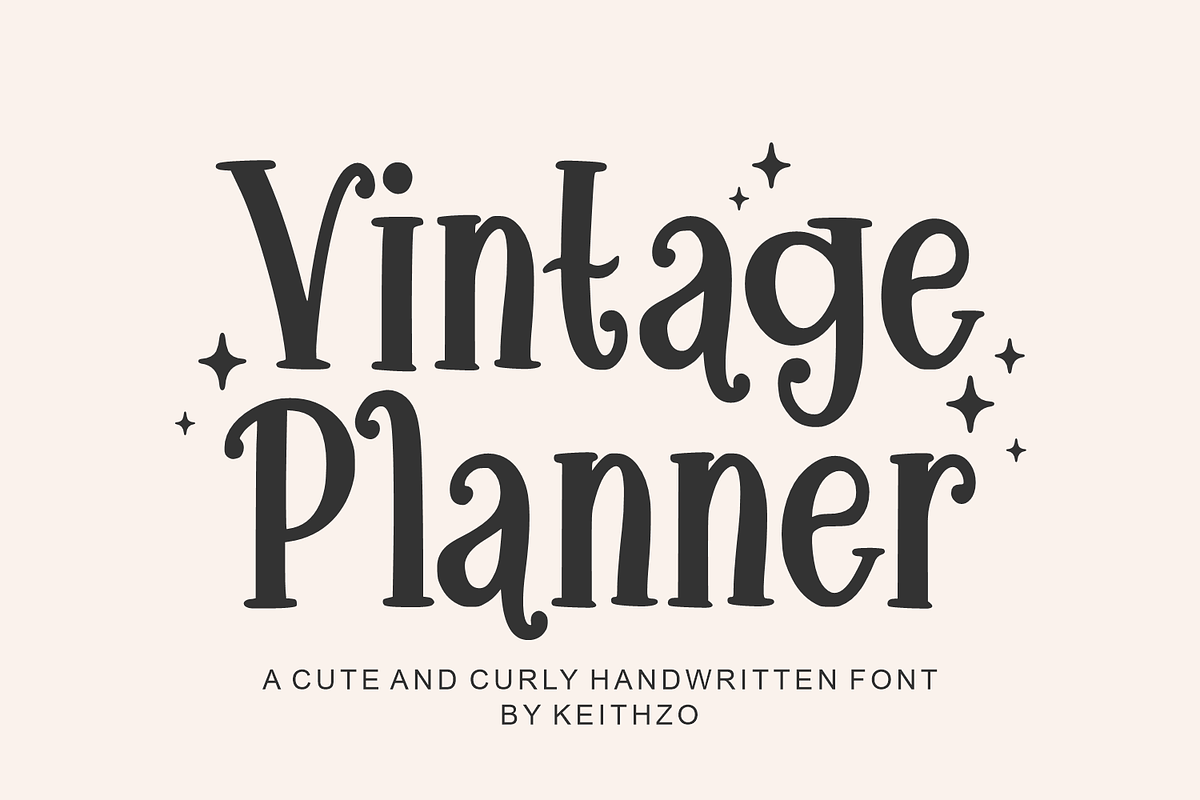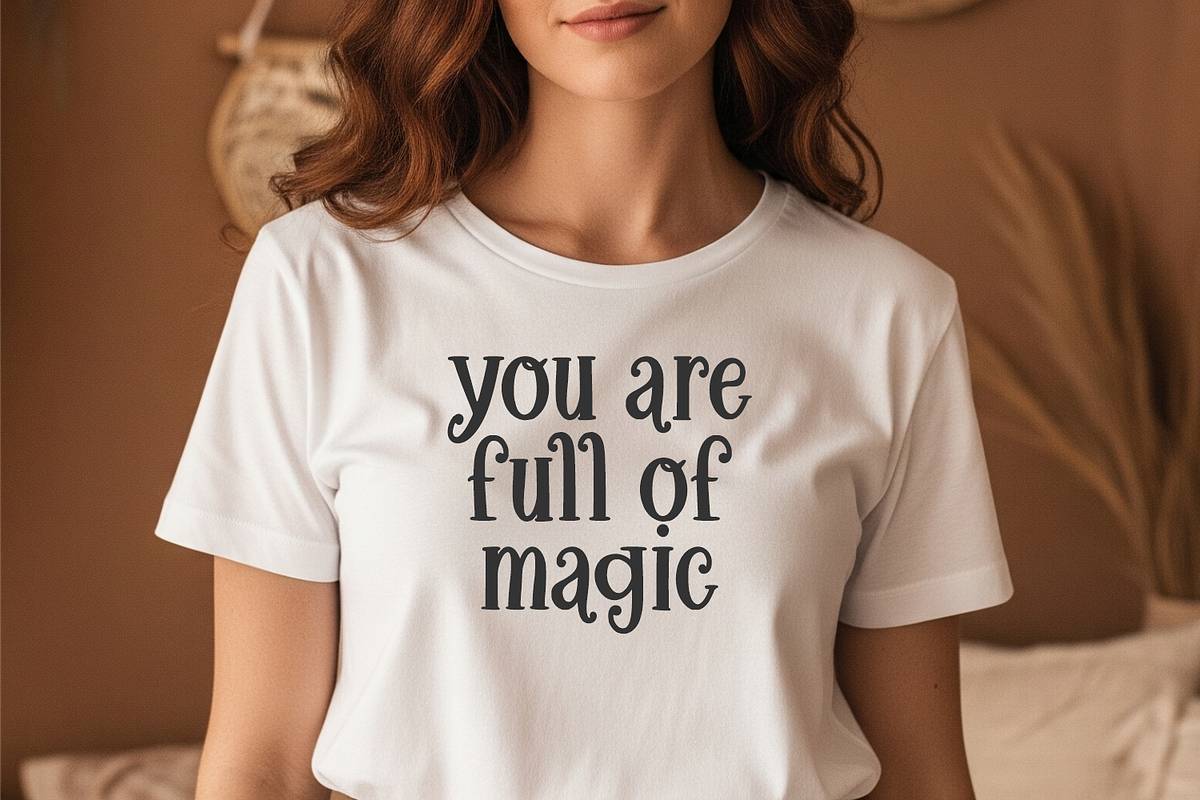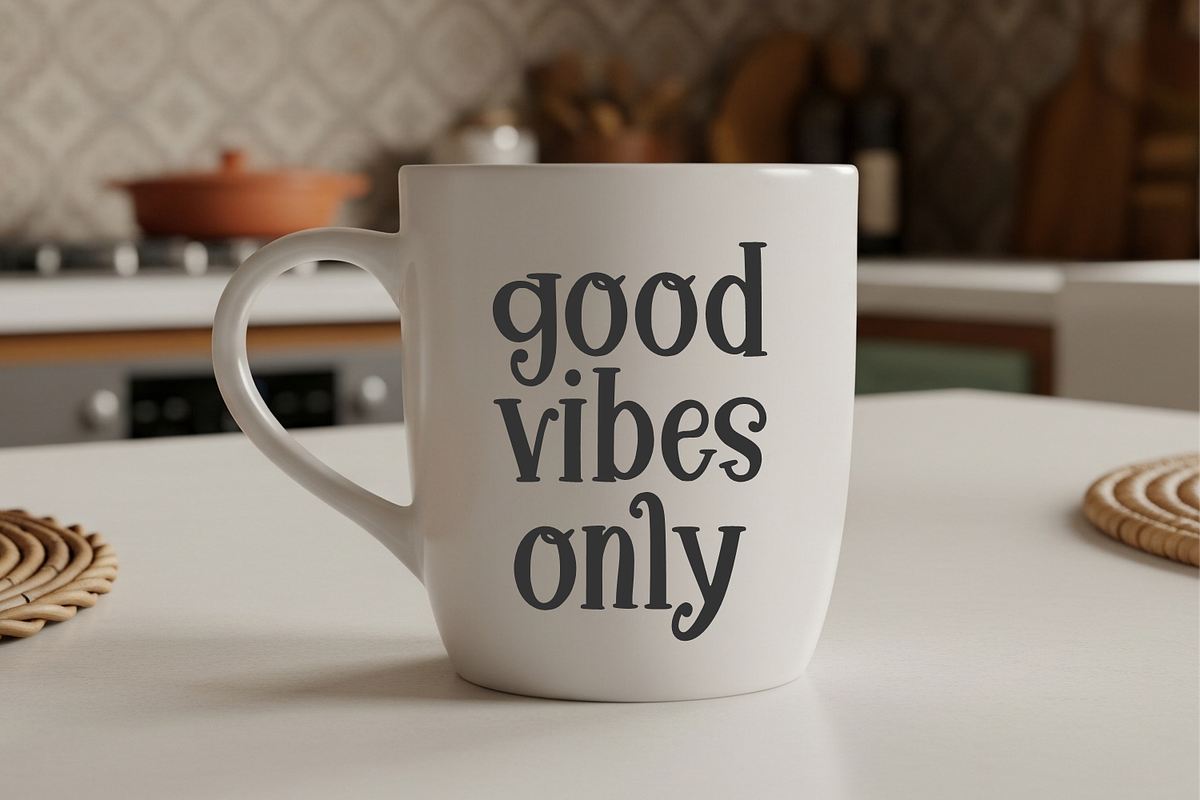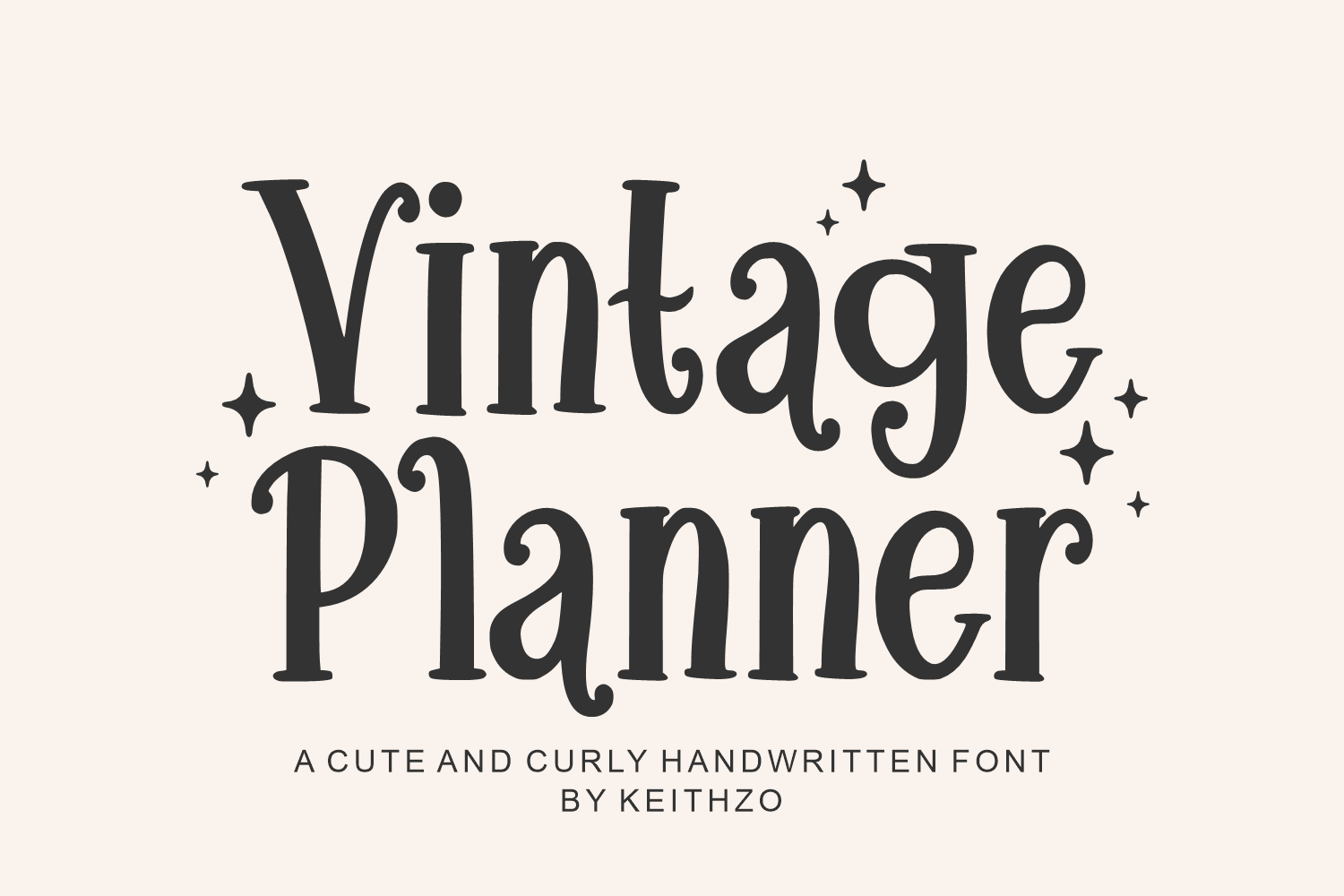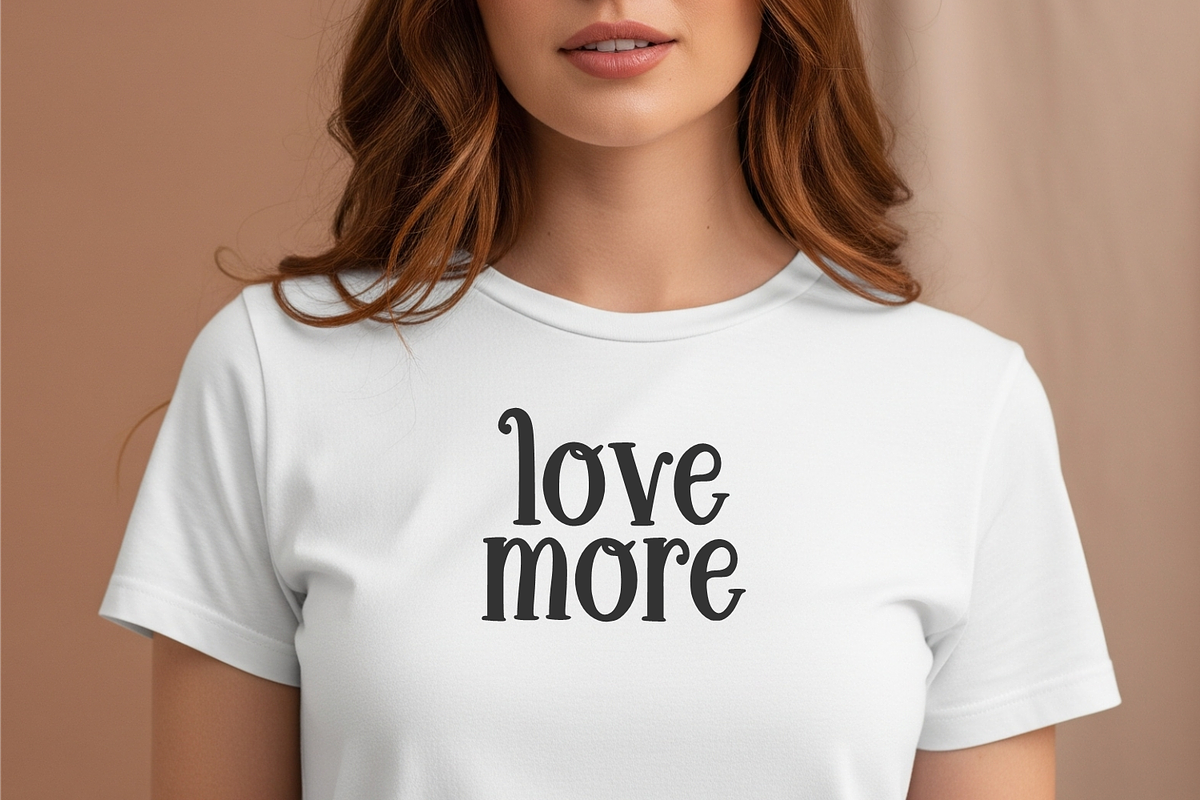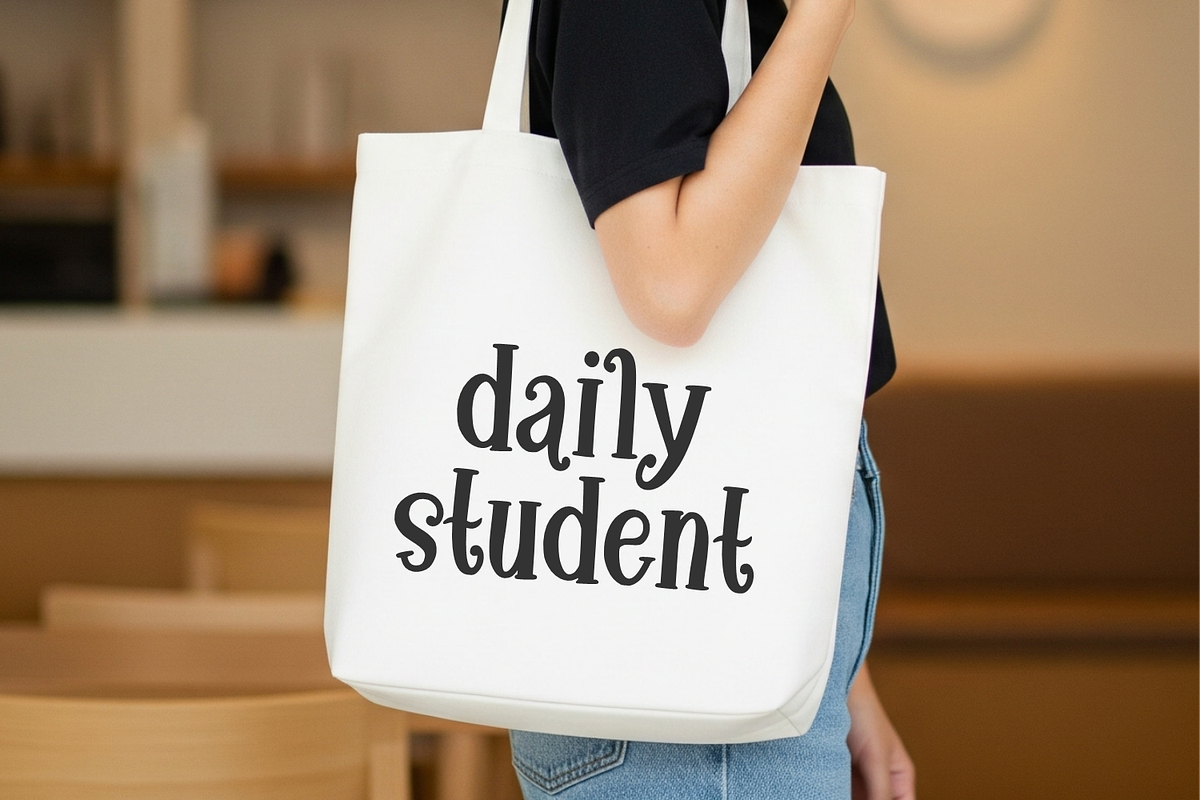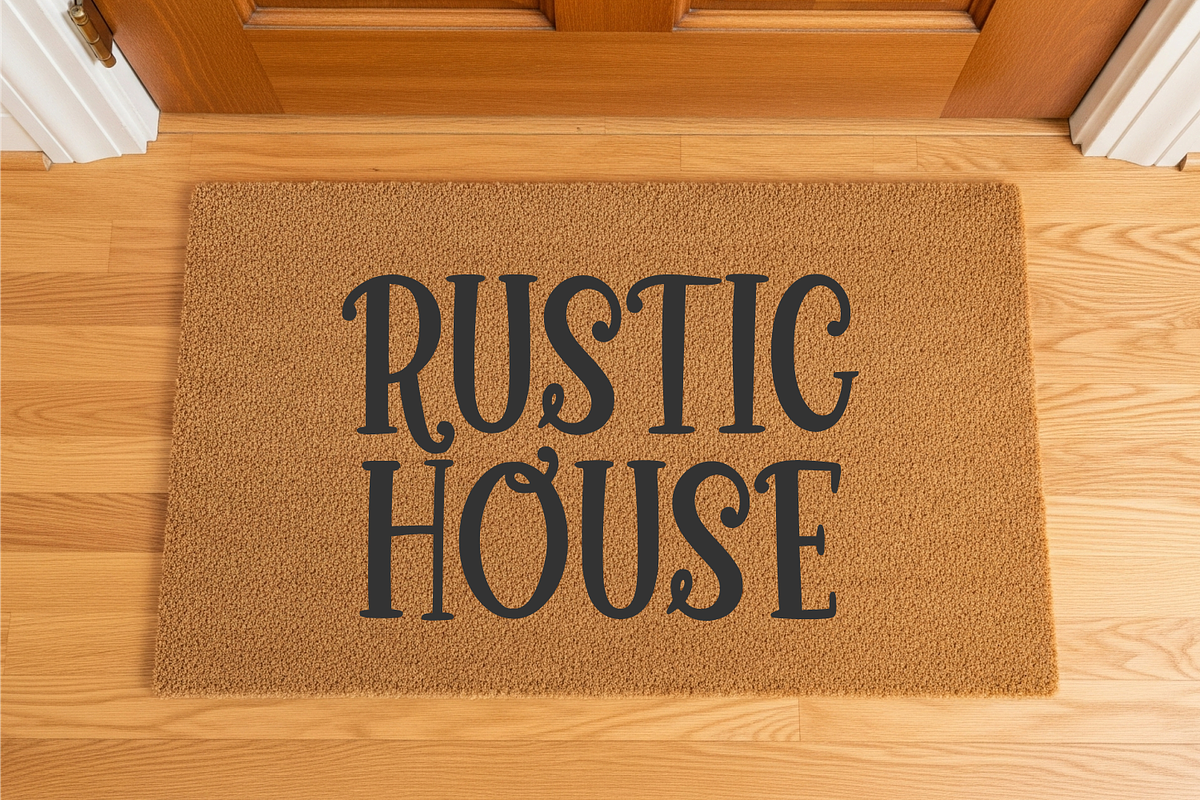
Vintage Planner - Cute Serif Font
Introducing Vintage Planner, a uniquely styled retro serif font that carries an authentic handwritten feel. It sports an adorable characteristic curve, adding a dash of charm to your creations. Whether it’s adorning t-shirts, mugs, diaries, doormats, tumblers or adding flair to tote bags, this font proves to be a versatile choice. Its adaptable nature allows it to be effortlessly used to pen small notes in books or to take center stage on your social media ads, logos, headlines or magazines. Vintage Planner also makes for an ideal choice to convey warm wishes on greeting cards, adding a personalized touch that spells love and care. Embrace the Vintage Planner and let your creative energy flow!